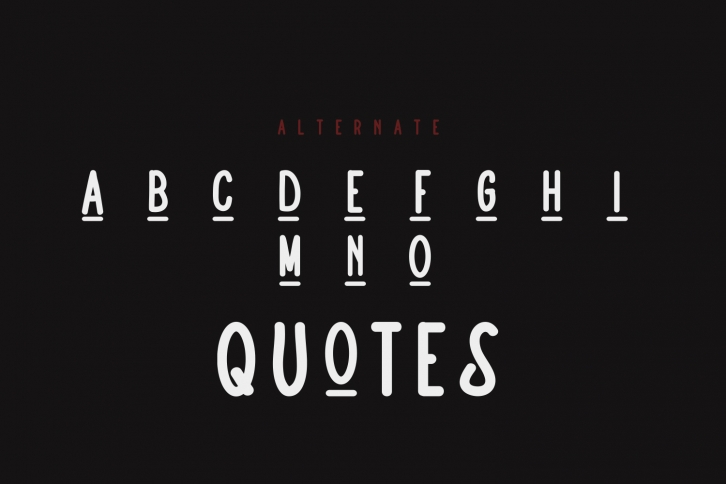
Alternatie Vintage is a great font that was designed by Arendxstudio. Imagine the amount of combinations you can create using this font! The archive is 9.23 MB and it was released on July 16, 2019. Alternatie Vintage looks beautiful on wedding invitations, greeting cards, logos, posters, labels, t-shirt designs, logos, business cards and is perfect for use in ink or watercolor works, fashion, magazines, packaging and food menus, children's books and more!